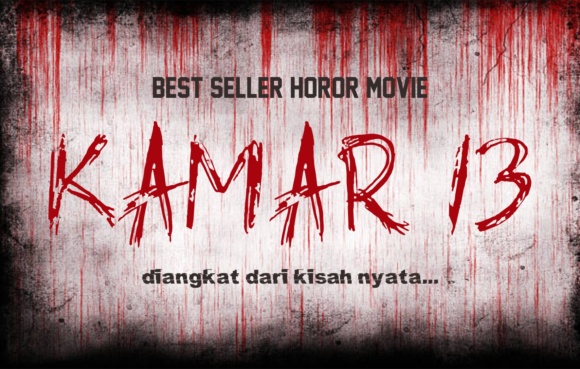
Unleash your creativity and let your words dance with grace and style! Introducing Ceu Gense, the captivating script font that will transform your designs into works of art.
Immerse yourself in a world where imperfections birth beauty. Ceu Gense is a playful and charming font, crafted with the essence of a mischievous pen stroke, playfully mimicking the whimsical nature of handwritten notes. Each letter dances across the page, capturing the essence of a child's imagination, adding a touch of whimsy and charm to your projects.
With its unique and enchanting style, Ceu Gense is the perfect choice for designers seeking to create eye-catching logos that demand attention, branding that exudes personality, and social media posts that ignite engagement. Its versatility shines in wedding invitations, adding a touch of elegance and romance, and in playful children's books, bringing stories to life with a sprinkle of magic.
Ceu Gense is more than just a font; it's an invitation to embrace the beauty of imperfection, to let your creativity flow freely, and to make your designs stand out from the crowd. Download Ceu Gense today and unleash the power of captivating typography!